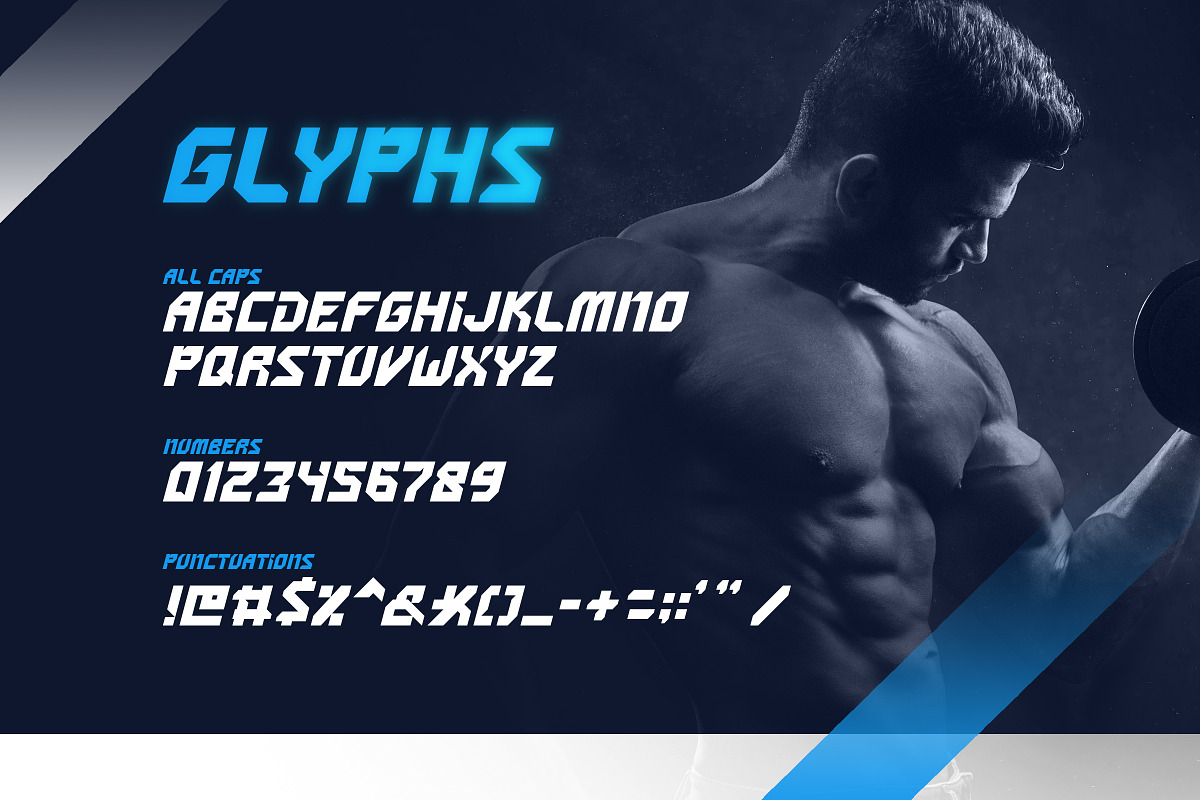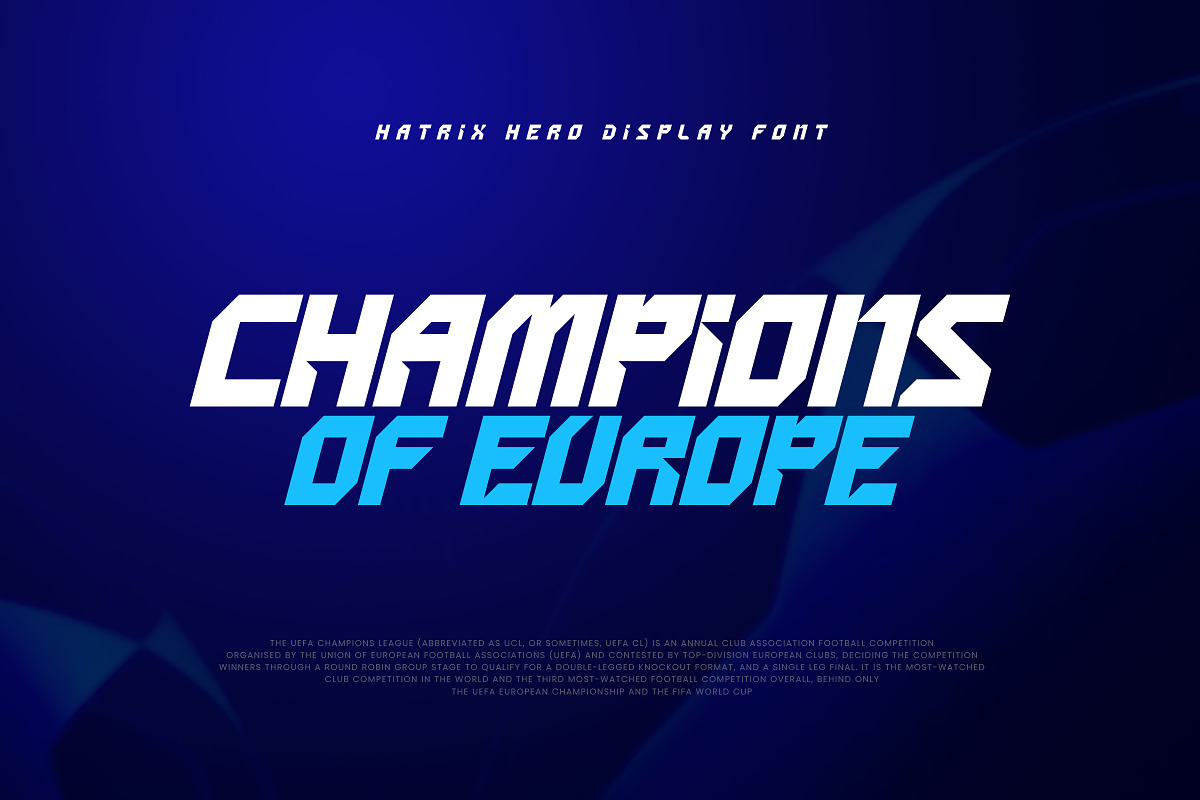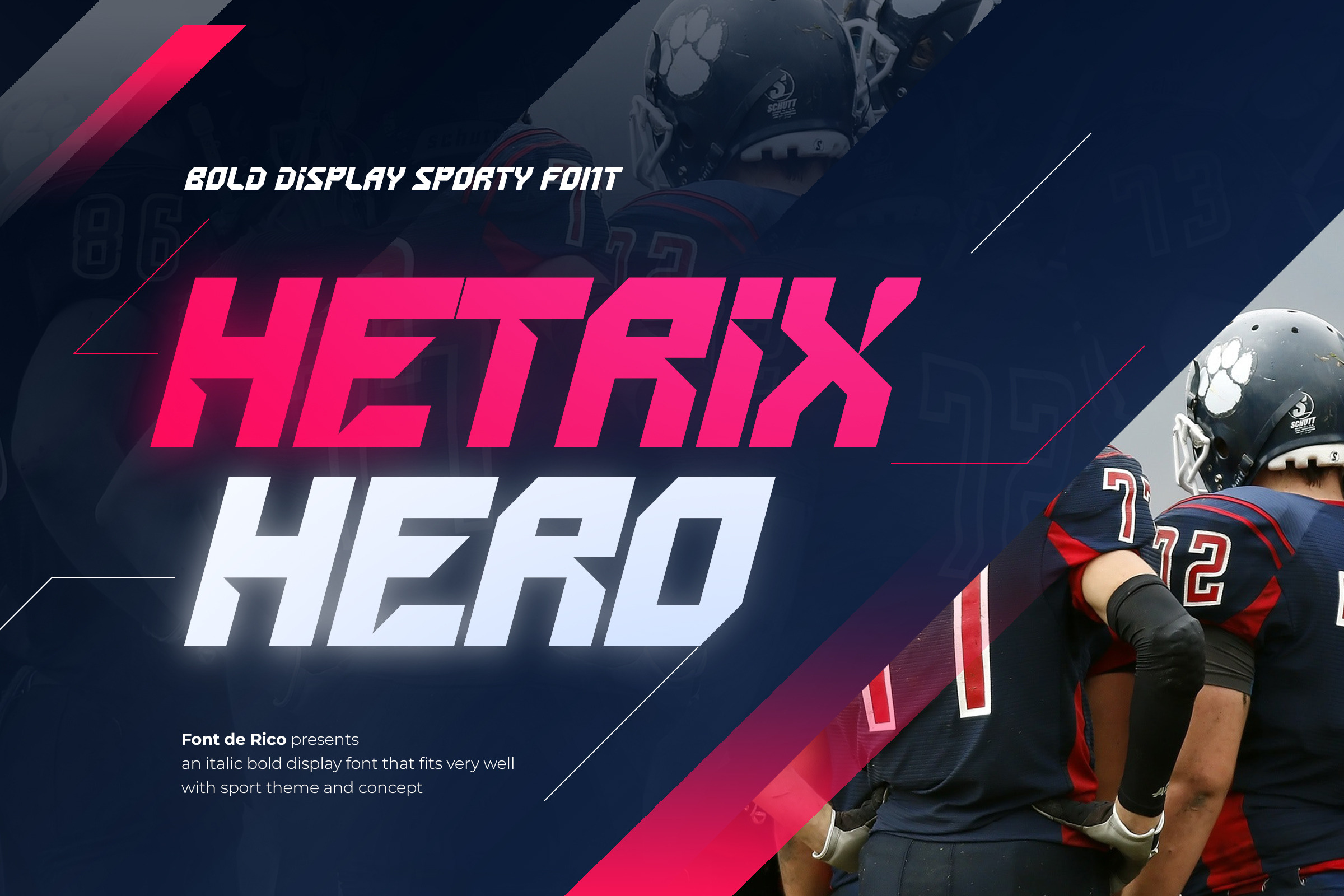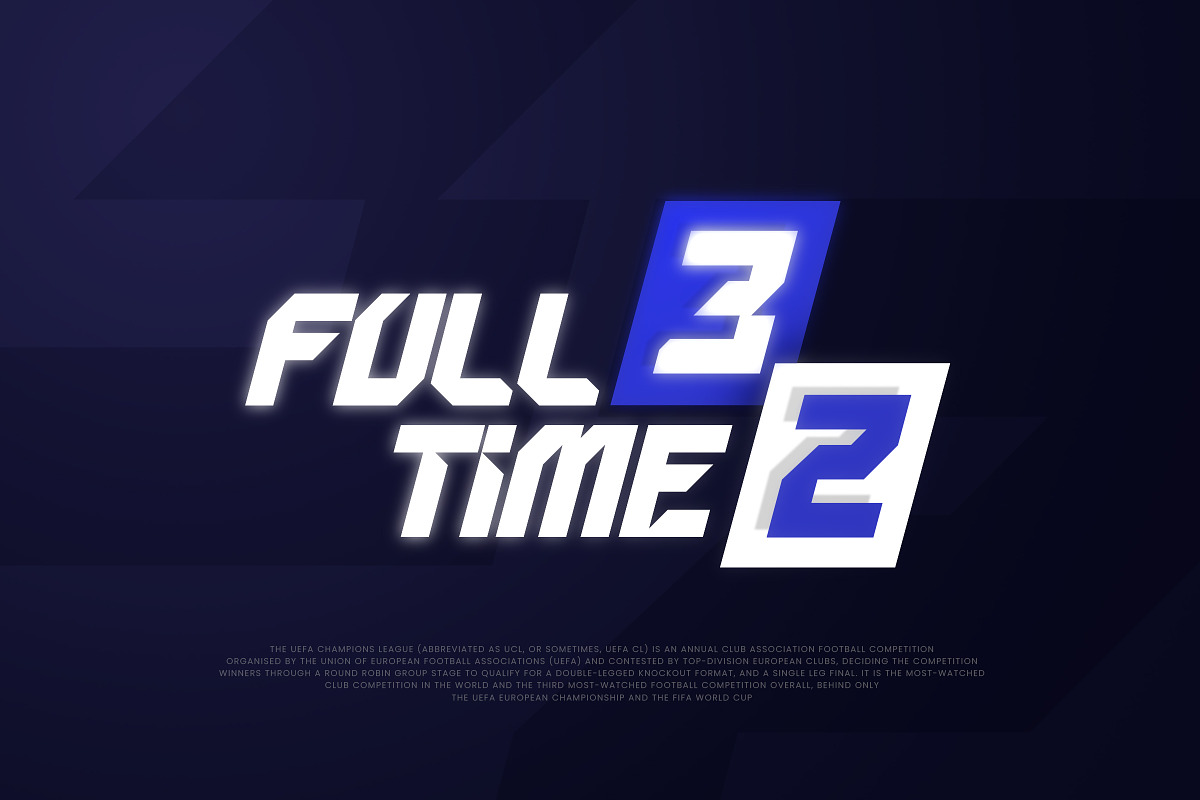
Hetrix Hero - Sporty Display Font
It's Italic Bold Font Display that fits very well with Physical Sport and Esport Project
- All Caps
- Numbers and Punctuation